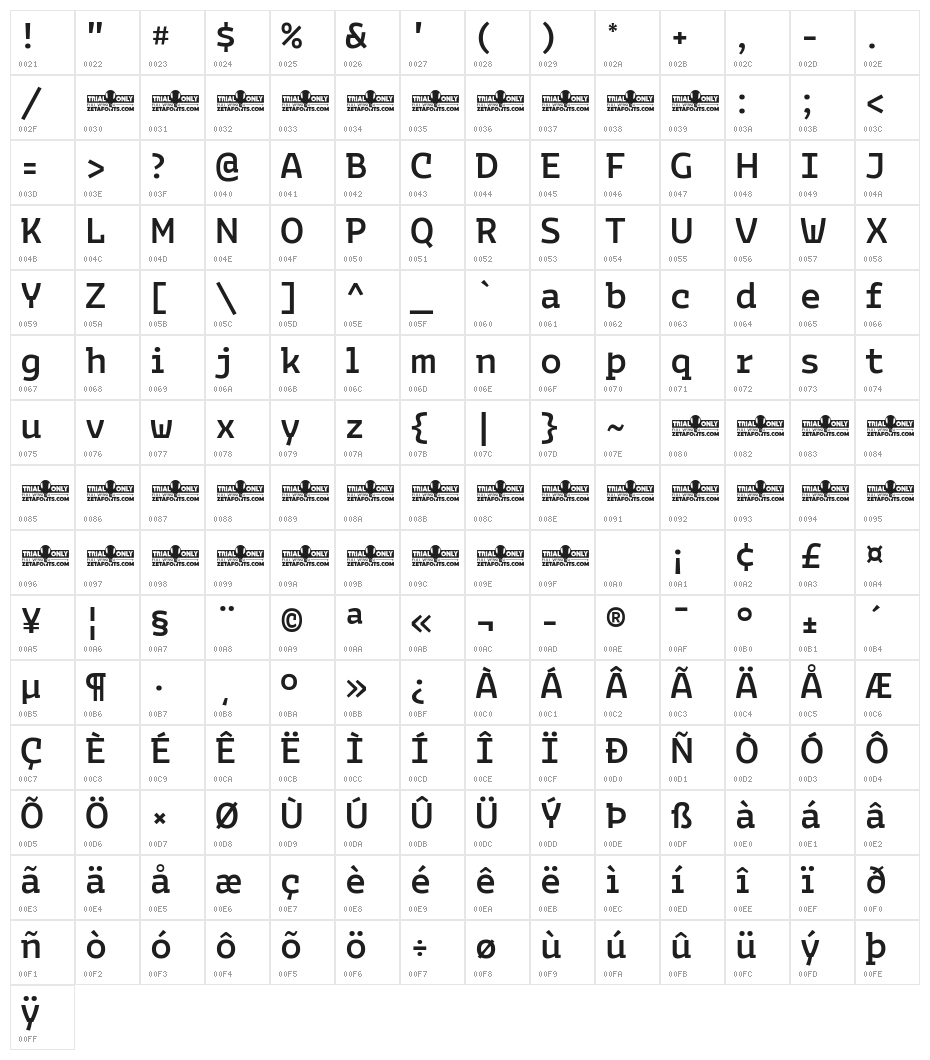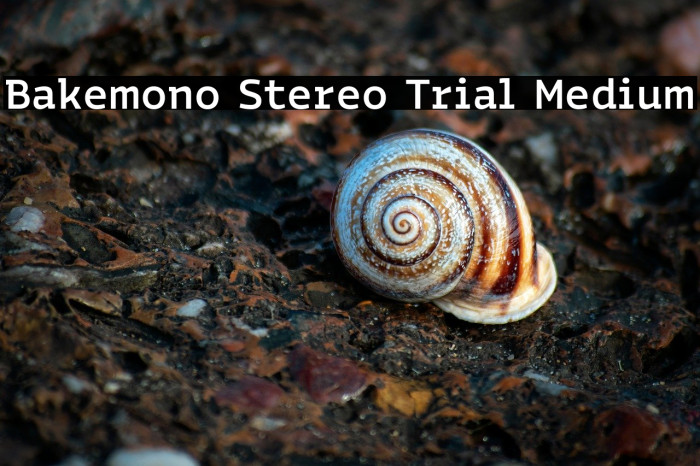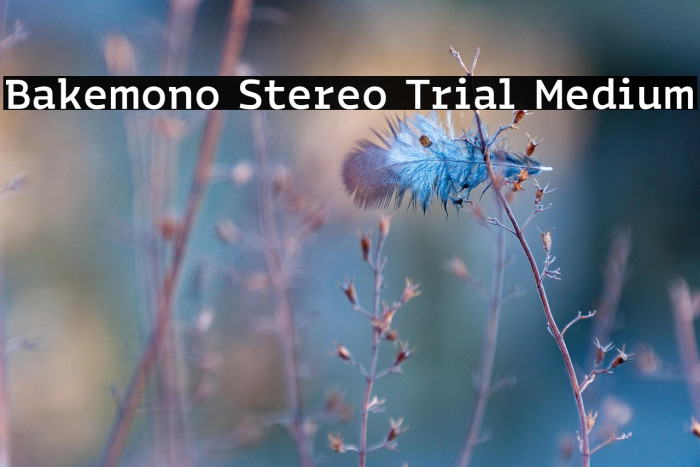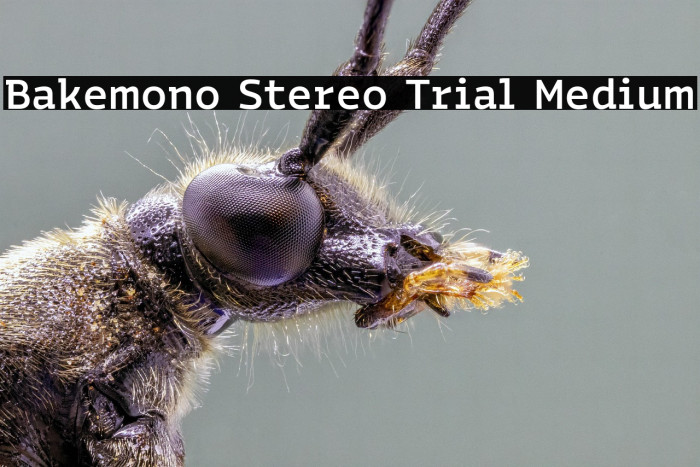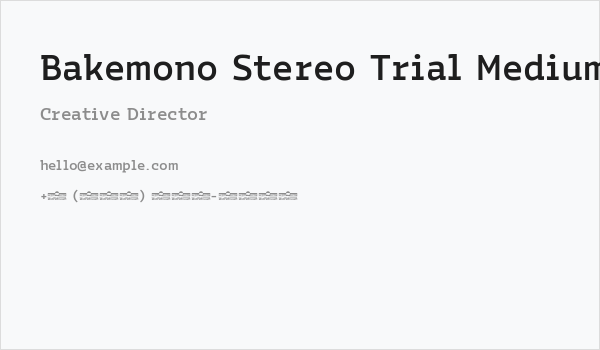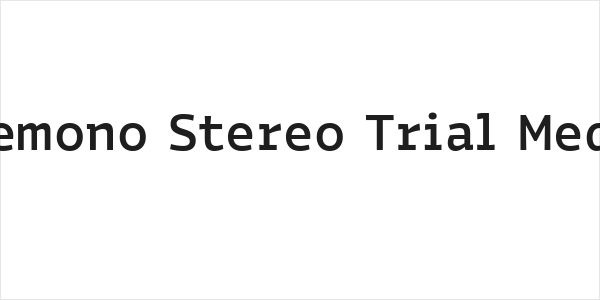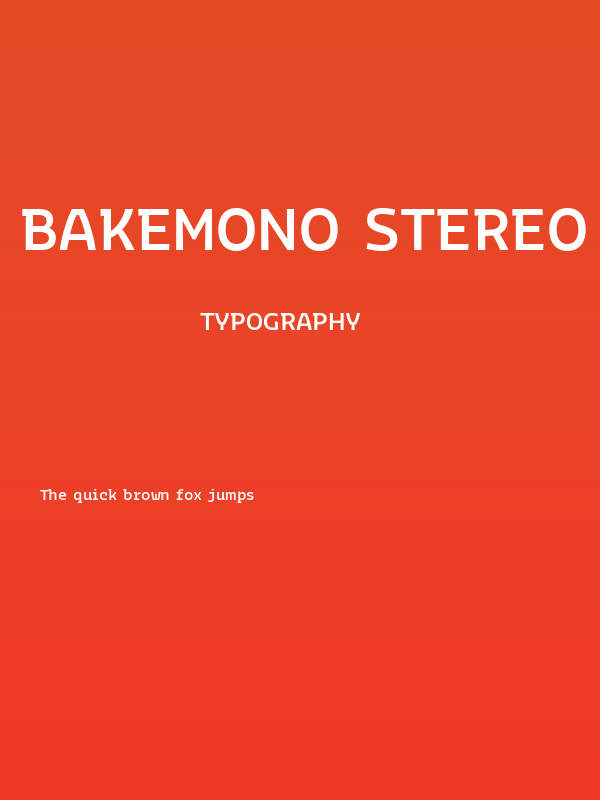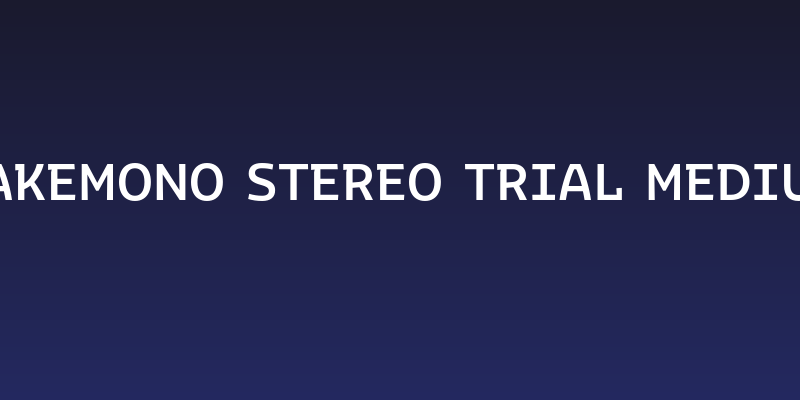
Bakemono Stereo Trial Medium Font
Bakemono Stereo Trial Medium Description
This font features a modern and slightly playful design with a unique twist on traditional letterforms. The characters are bold and have a distinct geometric influence, with clean lines and a slightly condensed appearance. The uppercase letters are uniform in height, while the lowercase letters maintain a consistent baseline, adding to the font's readability. The special characters are designed to match the overall style, ensuring a cohesive look across all text elements. This font's design is both functional and stylish, making it suitable for a variety of applications.
| Proposed Projects | Ideal for branding, headlines, posters, and digital media where a modern and bold statement is needed. |